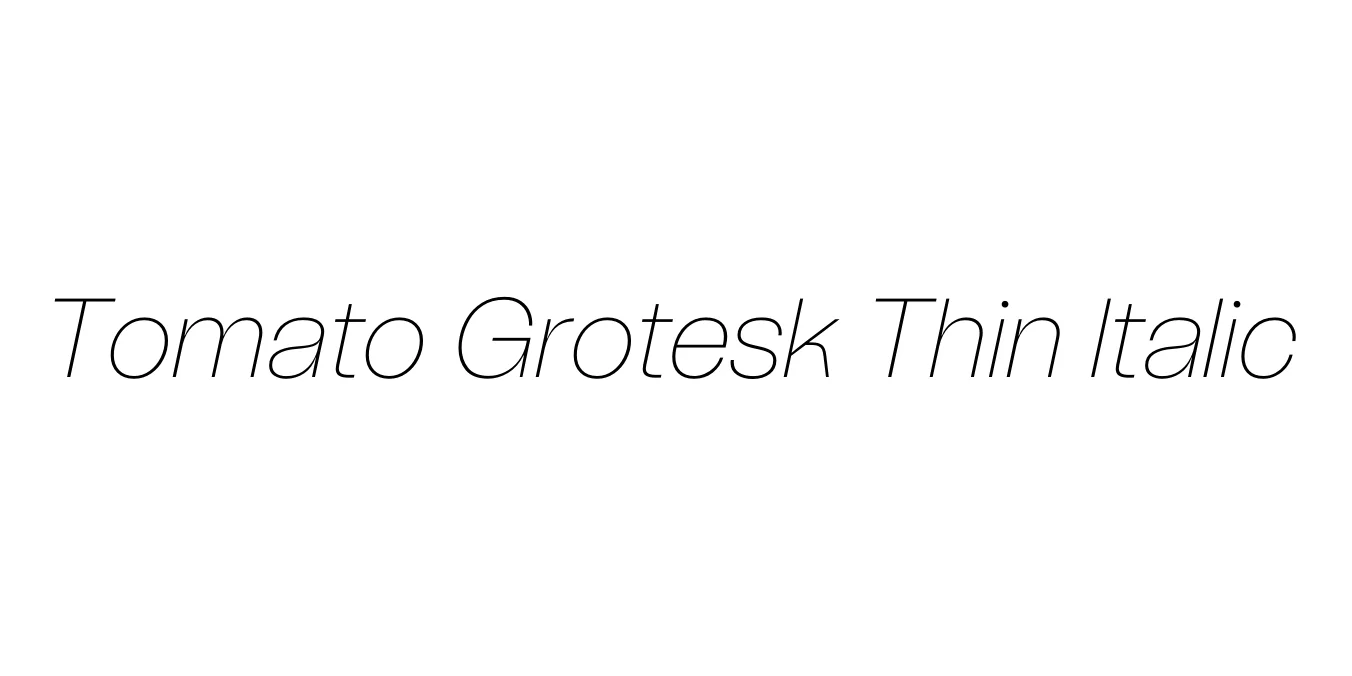
Tomato Grotesk Thin Italic
Designed by Andrea Biggio
Tomato Grotesk Thin Italic is a contemporary sans-serif typeface that masterfully blends the utilitarian roots of classic grotesque fonts with modern, quirky geometric details. Developed by Andrea Biggio, the font family is characterized by its tight apertures and distinct letterforms that maintain a clean yet expressive personality across various digital and print mediums.
The Thin Italic variant specifically highlights the elegance of the typeface through its slanted, hairline strokes. This weight offers a sophisticated and airy aesthetic, making it an exceptional choice for high-end editorial layouts, luxury branding, and minimalist design projects where a sense of motion and refinement is required.
Tomato Grotesk Thin Italic Best Uses
Ideal for sophisticated magazine headlines and stylish pull-quotes.
Perfect for luxury identity systems and minimalist logo designs.
Great for high-impact hero sections and refined accent typography.